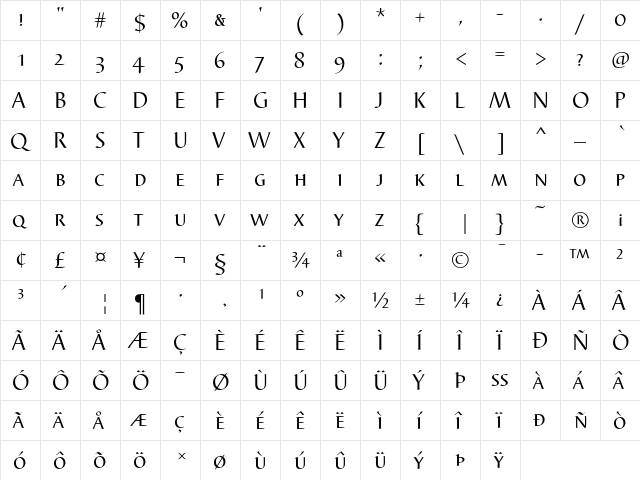
Barbedor SC T Regular
Design Context for Barbedor SC T Typeface
Barbedor SC T takes a measured approach to typography — its balanced proportions and neutral character make it a reliable workhorse for both digital and print work.